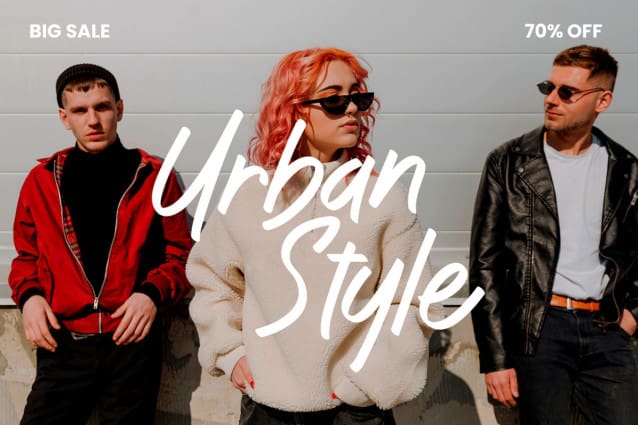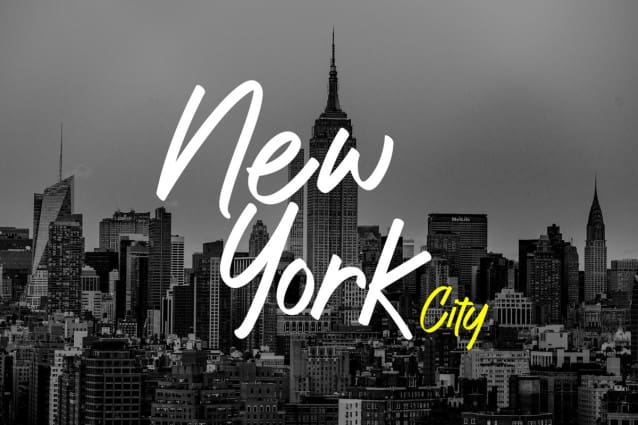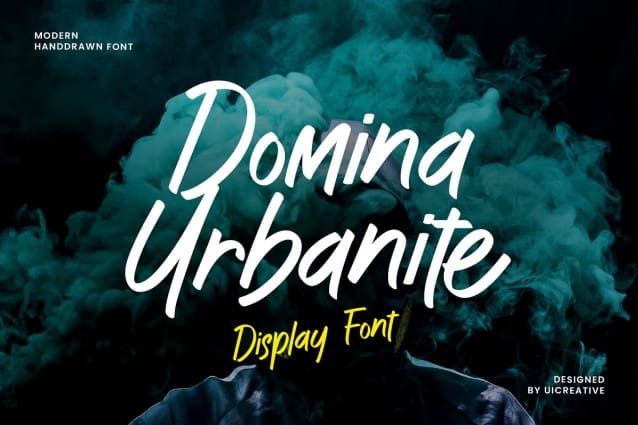
Domina Urbanite Font
Domina Urbanite Font – Modern Handwritten. Modern Serif font that feels beautiful classy, elegant, and modern. This font is ideally suited for a wide variety of projects, such as signature, stationery, logo, wedding, typography quotes, magazine or book covers, website headers, clothing, branding, packaging design, and more. Also, fashion-related branding or editorial design displays both masculine and feminine qualities.